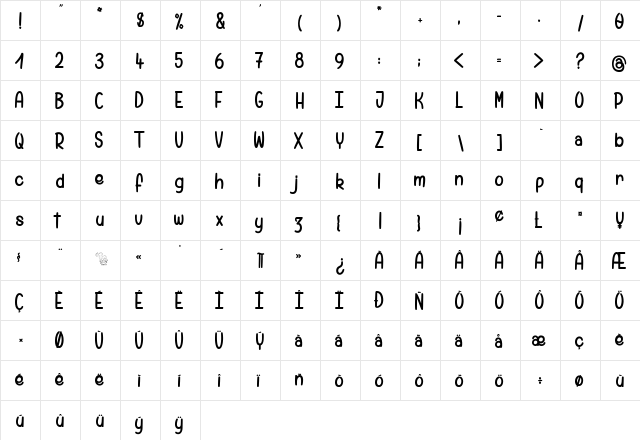
Pamela want a Bike to Ride Regular
Design Context for Pamela want a Bike to Ride Typeface
Pamela want a Bike to Ride is a composed and adaptable typeface that performs quietly and consistently across a wide range of design contexts.
Pro Tip: Use Pamela want a Bike to Ride in both headline and body roles to test its range before committing to a single application.